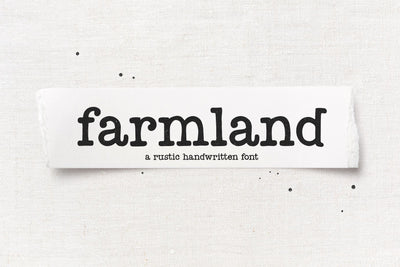
Farmland - Rustic Farmhouse Font
Farmland is a rustic typewriter style font.
This font is perfect for all of your farmhouse designs, cricut projects, svg files, branding, logos and more!